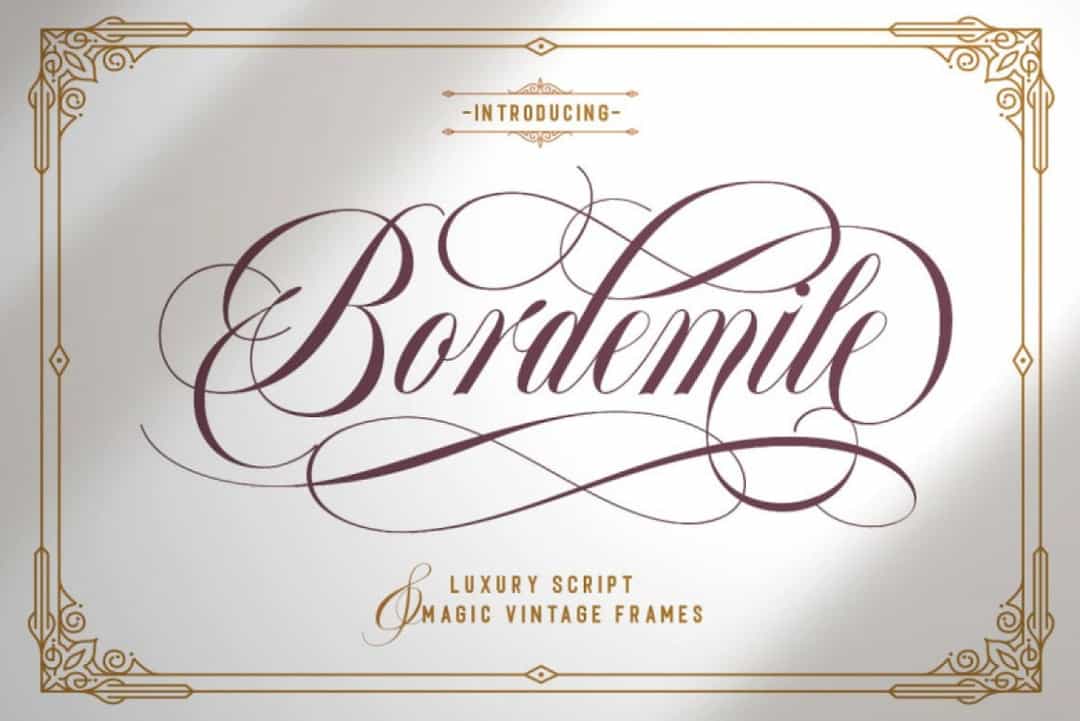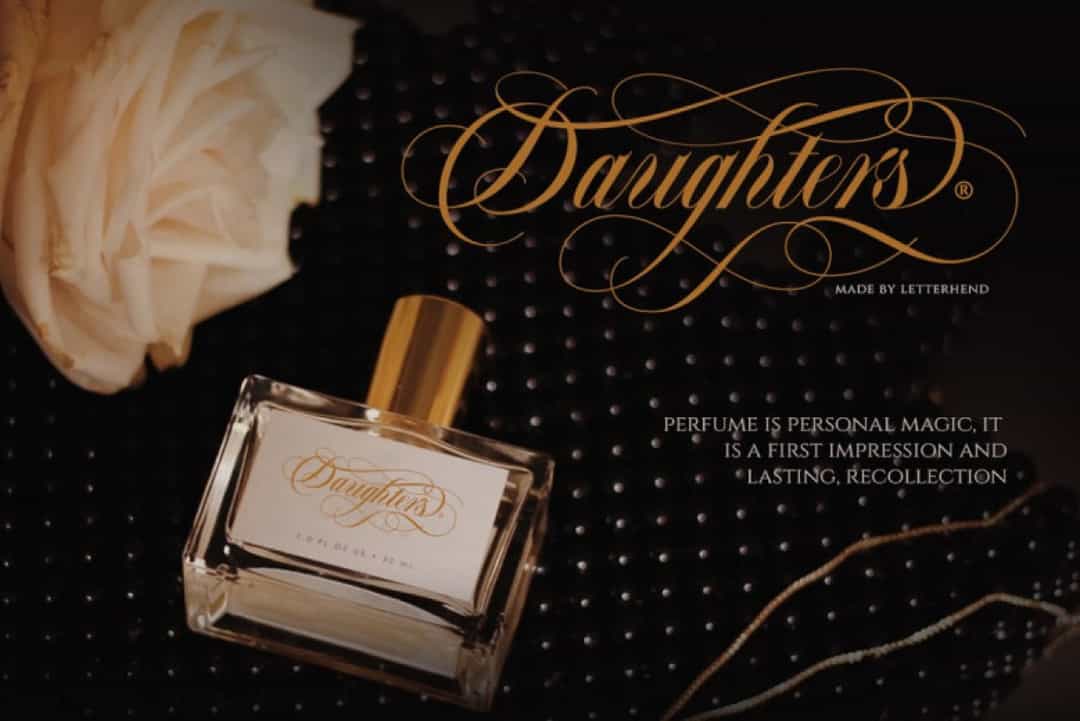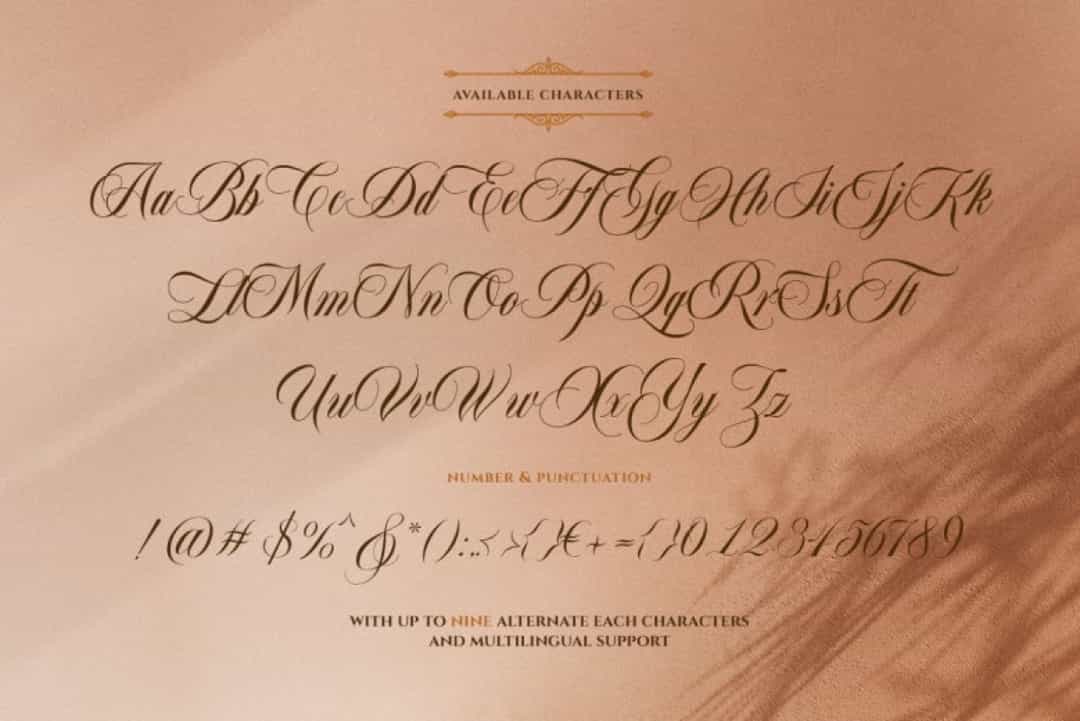
Bordemile can be described as a beautiful script font with some interesting swashes! Designing headlines, logotypes or invitations for clothing packaging brand and advertising campaigns.